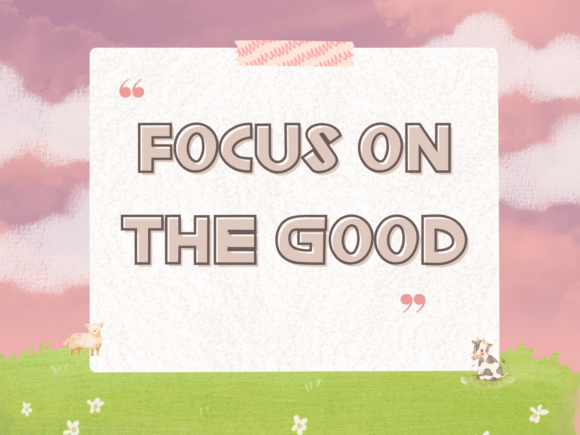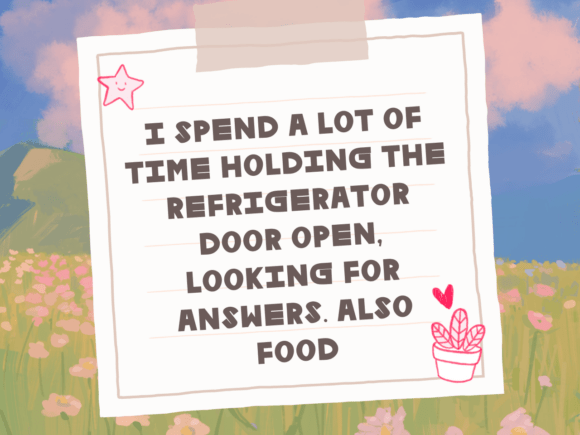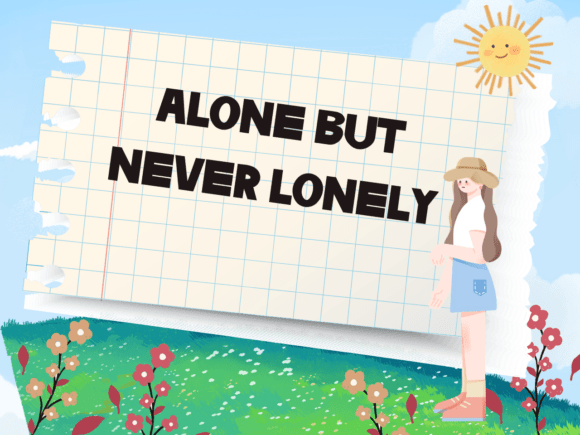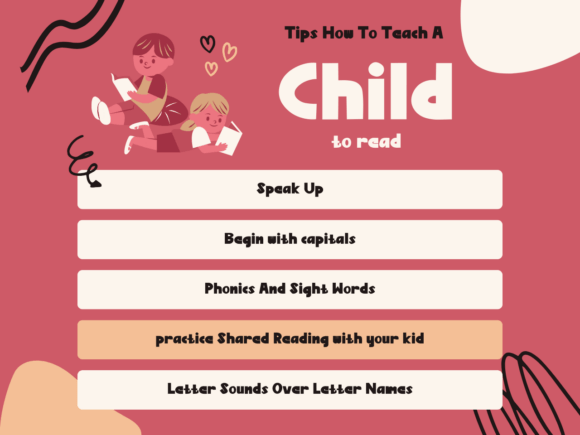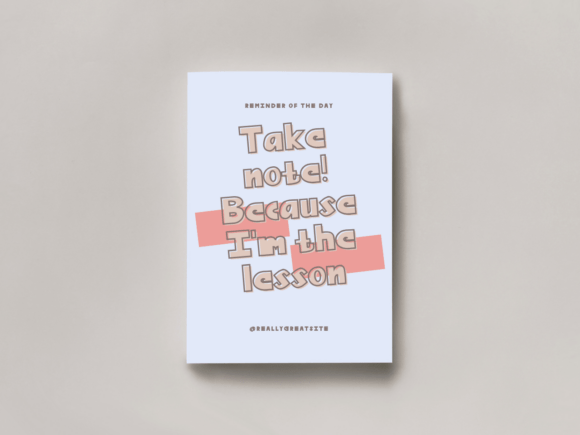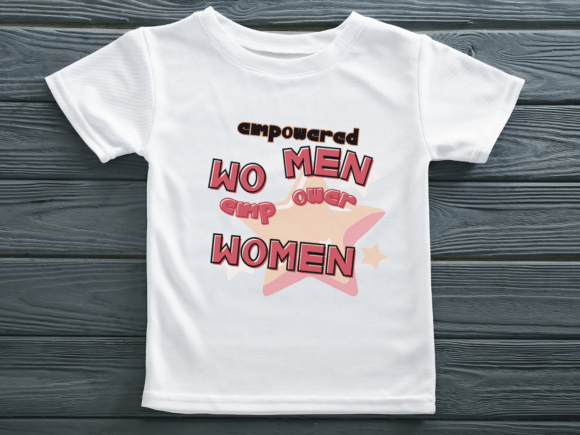
Introduction to North Font
Have you ever been in the midst of a creative project, struggling to find the perfect font to bring your vision to life? The frustration is real, but the solution is here. For designers seeking a high-quality design resource that elevates their work, we’re excited to introduce you to the incredible North Font.
As a masterfully designed display font, North Font is a true game-changer. Its unique style has the potential to take your creative ideas to new heights, making it an invaluable asset for any designer looking to make a statement. Whether you’re working on a personal project or a commercial campaign, North Font is sure to impress with its sophisticated look and feel.
Key Features of North Font
- High-quality design resource with a transparent background, perfect for creative projects.
- Unique, modern design that is ideal for use in logos, branding, and other visual identity elements.
- Includes a comprehensive character set, with support for a wide range of languages and alphabets.
- Easy to customize and edit, making it a versatile choice for designers and artists.
Honest Review: North Font
As a designer, I’m always on the lookout for high-quality design resources that can elevate my creative projects. Recently, I stumbled upon North Font, a fantastic font family that has been a game-changer for me.
What works well with North Font is its versatility. The font family includes a range of styles, from clean and minimalist to bold and decorative, making it perfect for various design applications. I particularly love the ✨ transparent background feature, which allows for seamless integration with other design elements.
Here are some of the key features that make North Font stand out:
- High-quality font family with multiple styles
- Transparent background feature for easy integration
- Perfect for creative projects, from logos to brochures
One limitation I’ve noticed is that North Font may not be suitable for all design applications, particularly those that require a more formal or traditional tone. Additionally, the font family may not be as extensive as some other popular font libraries. ⚠️
Overall, I’m thoroughly impressed with North Font and would highly recommend it to designers looking for a high-quality, free design resource. Its versatility, transparent background feature, and free download make it an excellent addition to any design toolkit.
Here are some tips to help you get the most out of North Font: use it in combination with other design elements, experiment with different font sizes and styles, and use it in various creative projects such as logos, brochures, and business cards.
North Font is commonly used in various creative projects such as logos, brochures, business cards, and websites. It’s also a popular choice for designers who want to create a professional and modern look for their designs.